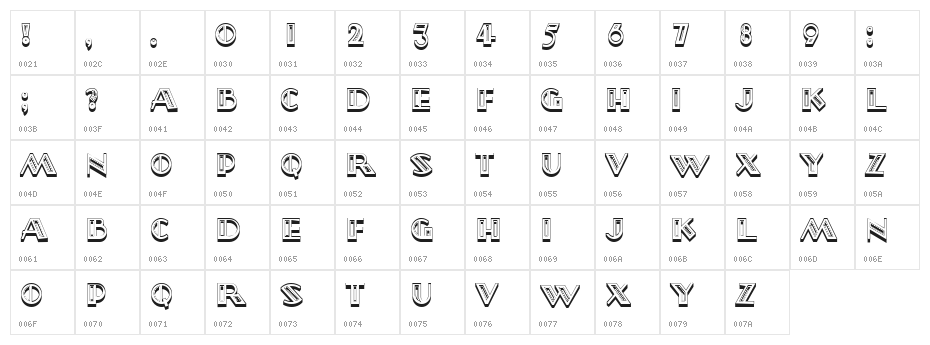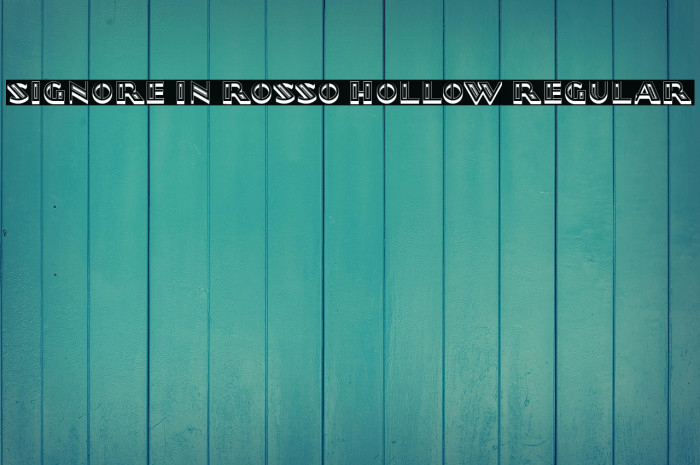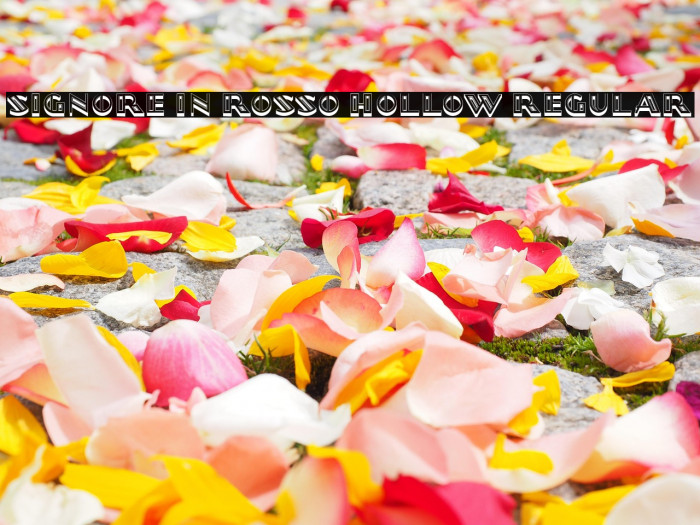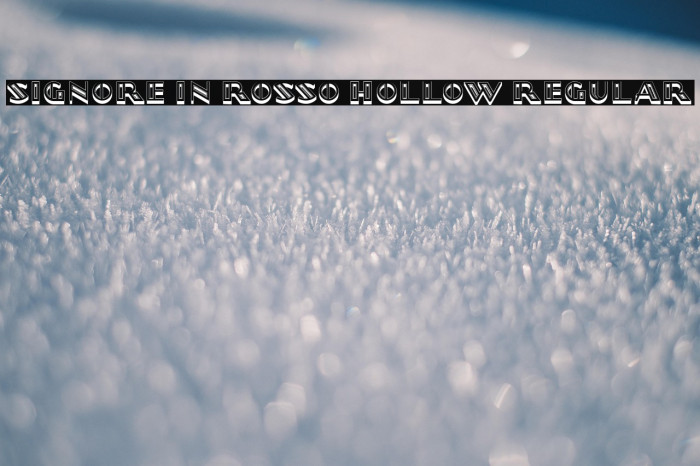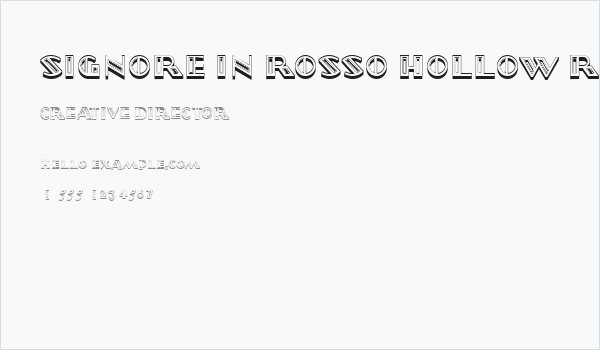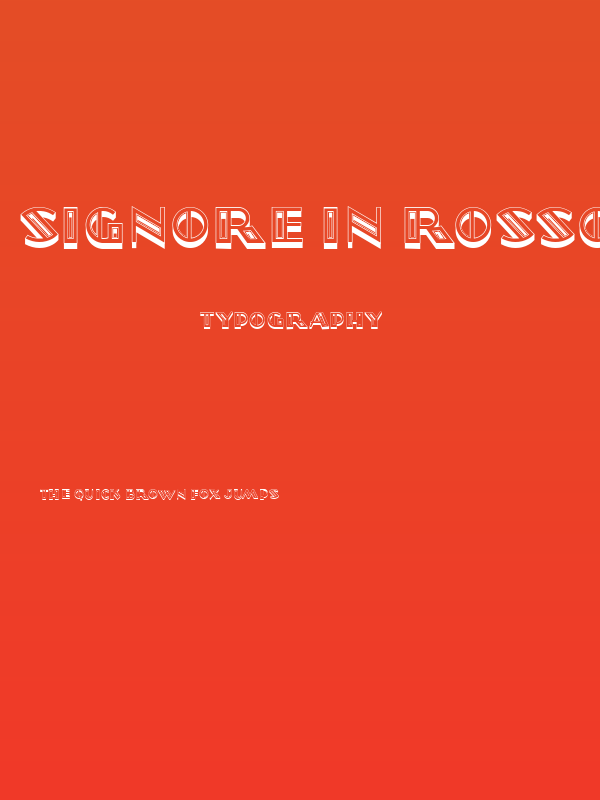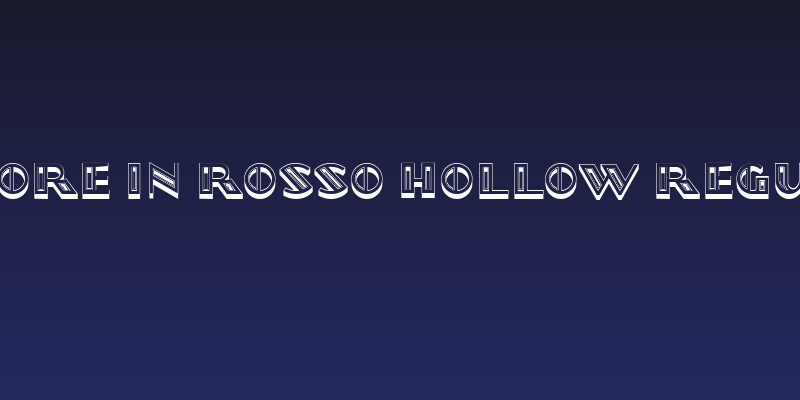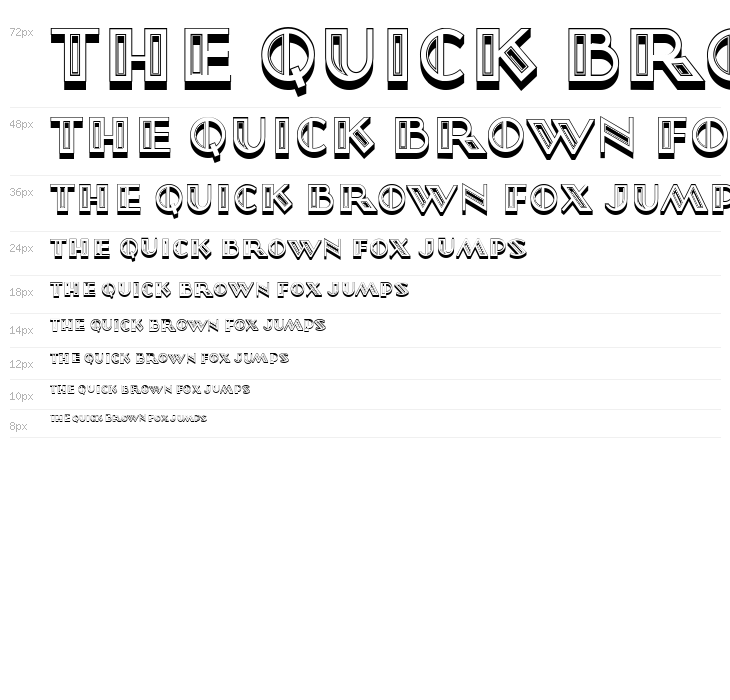
Signore in Rosso Hollow Regular Font
Signore in Rosso Hollow Regular Description
This font features a bold, hollow design with a three-dimensional effect, giving it a striking and dynamic appearance. The uppercase letters are crafted with a strong geometric structure, while the hollow centers add a sense of depth and dimension. The numbers and special characters follow the same bold and hollow style, ensuring consistency across all characters. The font's unique style makes it ideal for eye-catching designs that require a modern and impactful look.
| Proposed Projects | Ideal for posters, headlines, branding, and any design requiring a bold and modern aesthetic. |